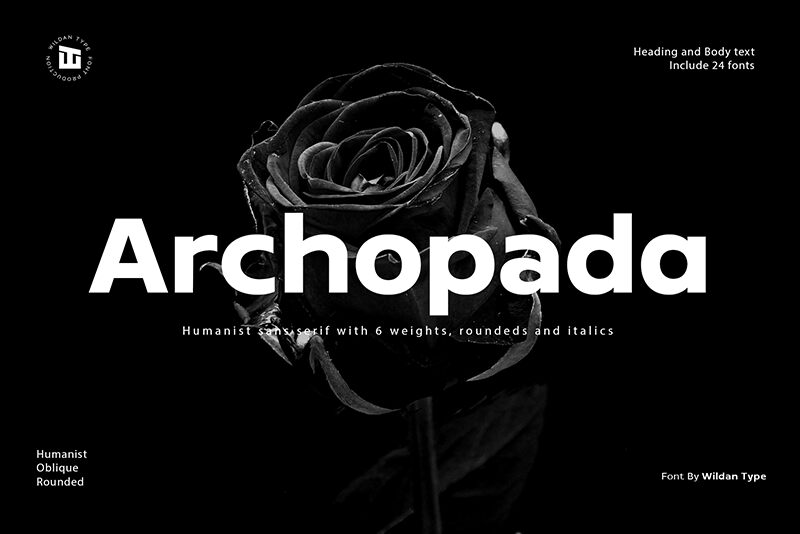
Archopada font family is an 18 font styles type family that describes multifaceted powers whose beauty is instantaneous and comprehensive. Wildan Type has put forth amazing professional consistencies in this succinct style that exceeds expectation. A clean, modern look with classic versatility is equipped with all essential features to ensure a complete, remarkable success in every project. A friendly look in this free font family gives a natural feel that is professional yet approachable.
Archopada is compelling in both digital and print displays like websites, mobile apps, games, branding, magazines, posters, books, social media posts, and stationery items. Besides this, the font can be used for headlines, titles, body text, packaging, and lots more. The font is legible and gives an exceptional aesthetic appeal which can be modern, classic, or something else.